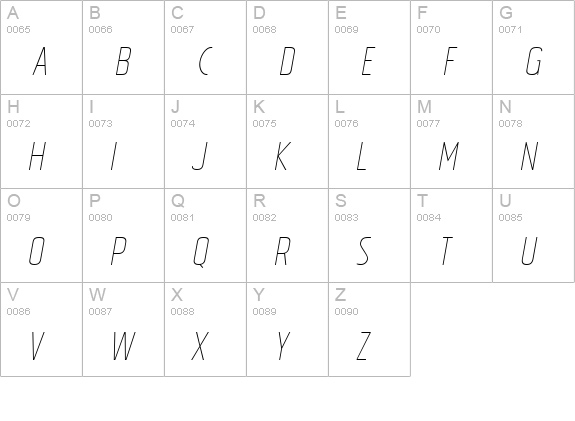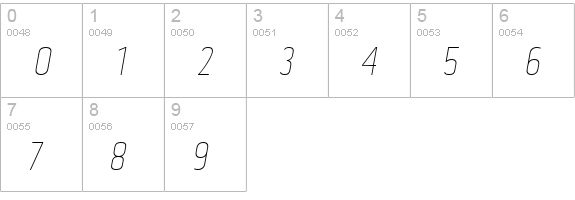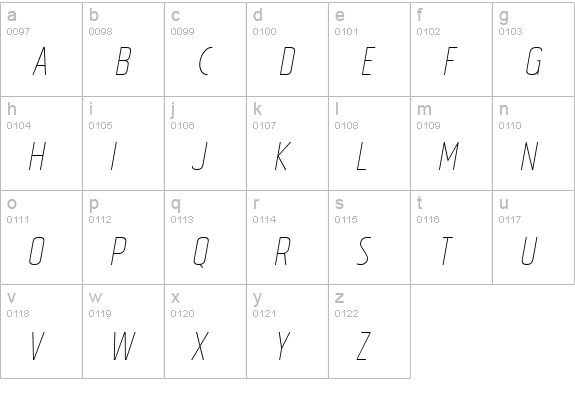
Tolyer Thin no.4 Oblique is a delicate, low-contrast, italic variant in the Tolyer typeface family \xE2\x80\x94 well suited to fashion editorial, minimal branding, and high-contrast display.
Tolyer Thin no.4 Oblique font is a sleek and modern typeface that exudes elegance and sophistication. Its slanted design adds a touch of dynamism, making it perfect for projects that require a contemporary and stylish look. The thin strokes and subtle curves give this font a delicate yet impactful presence, making it suitable for a wide range of design applications. And the best part? Tolyer Thin no.4 Oblique font is completely free to download at FontsMarket.com. Now you can elevate your designs with this stunning font without any cost. Whether you're working on branding, editorial design, or web projects, this font will surely make a statement and leave a lasting impression on your audience. Download Tolyer Thin no.4 Oblique font today and add a touch of sophistication to your creative endeavors.